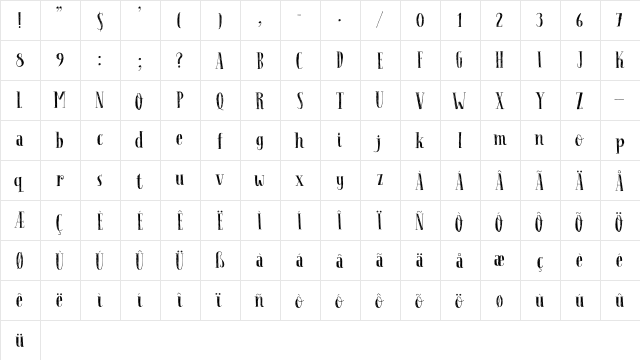
Follow The Light DEMO Regular
| Foundry | David Kerkhoff |
| Designer | David Kerkhoff |
Design Context for Follow The Light DEMO Typeface
Follow The Light DEMO is a composed and adaptable typeface that performs quietly and consistently across a wide range of design contexts. The delicate stroke weight brings airiness and refinement to layouts.